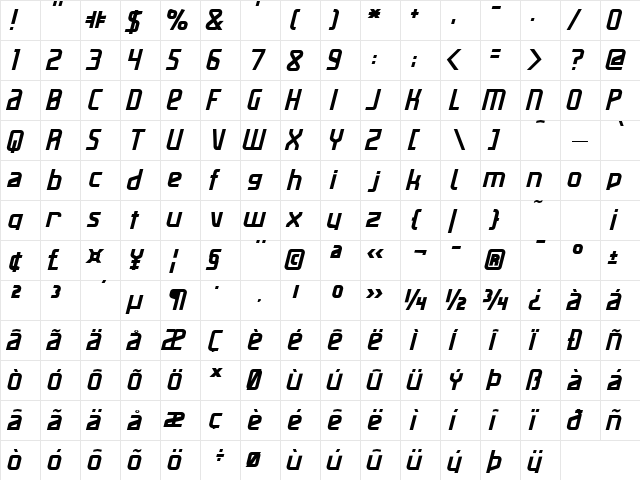
Maassslicer Regular
| Foundry | \(c\) CAT - Ing. Peter Wiegel. for Rudolf Maass + Partner GmbH |
Design Context for Maassslicer Typeface
Maassslicer offers clean, dependable letterforms without strong stylistic allegiance, making it a practical choice for designers who need flexibility.
Pro Tip: Use Maassslicer in both headline and body roles to test its range before committing to a single application.